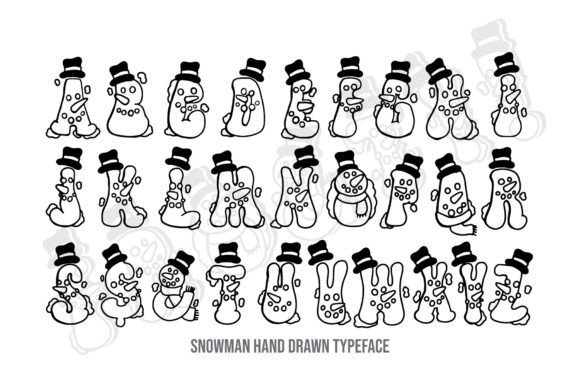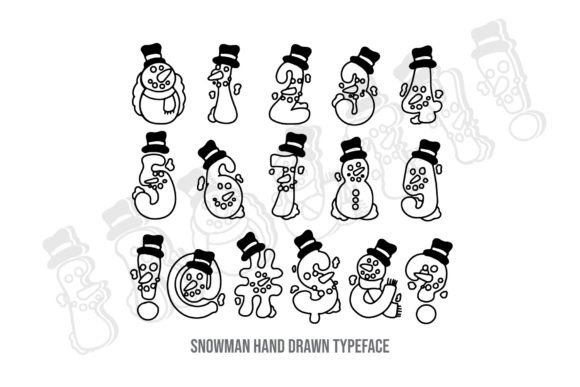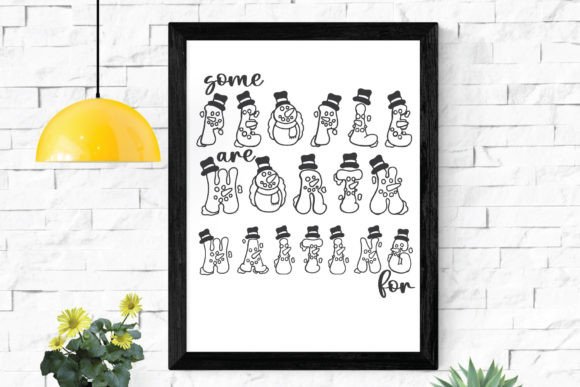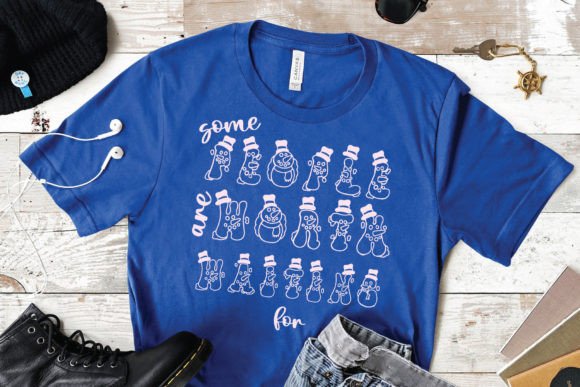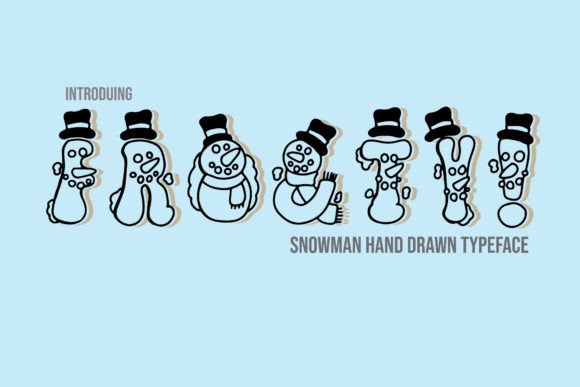
Frosty! Font: A Cute and Unique Decorative Font for Christmas Designs
Are you looking for a font that can add a touch of magic to your Christmas designs? Look no further than Frosty! Font, a cute and incredibly unique decorative font that’s perfect for the holiday season. In this article, we’ll take a closer look at Frosty! Font, its features, and how you can use it to create stunning designs for Christmas and beyond.
What is Frosty! Font?
Frosty! Font is a decorative font designed to capture the essence of the Christmas season. With its playful and whimsical style, it’s perfect for creating festive designs that are sure to delight. The font features a range of characters, including uppercase and lowercase letters, numbers, and punctuation marks, all with a frosty, icy look that’s sure to add a touch of winter wonderland to your designs.
Features of Frosty! Font
Frosty! Font has several features that make it stand out from other decorative fonts. Here are a few:
- Unique Design: Frosty! Font has a one-of-a-kind design that’s sure to grab attention. Its frosty, icy look is perfect for creating Christmas designs that are both festive and fun.
- Wide Range of Characters: The font features a wide range of characters, including uppercase and lowercase letters, numbers, and punctuation marks, making it versatile and easy to use.
Design Ideas Using Frosty! Font
Frosty! Font is a versatile font that can be used for a wide range of design ideas, particularly those related to the Christmas holiday. Here are a few ideas to get you started:
- Christmas Cards: Use Frosty! Font to create festive Christmas cards for friends and family.
- Holiday Gift Tags: Add a personal touch to your holiday gift tags with Frosty! Font.
- Winter Wonderland Posters: Create stunning winter wonderland posters using Frosty! Font and some beautiful winter scenery.
- Christmas Party Invitations: Use Frosty! Font to create festive Christmas party invitations that are sure to get your guests in the holiday spirit.
Tips for Using Frosty! Font
Here are a few tips for using Frosty! Font:
- Pair with Other Fonts: Pair Frosty! Font with other fonts to create a unique and interesting design.
- Use on Different Backgrounds: Use Frosty! Font on different backgrounds to create a range of effects.
Frosty! Font is a cute and incredibly unique decorative font that’s perfect for Christmas designs. With its frosty, icy look and wide range of characters, it’s versatile and easy to use. Whether you’re a designer or crafter, Frosty! Font is a great addition to your font collection. So why not give it a try and see what amazing designs you can create?